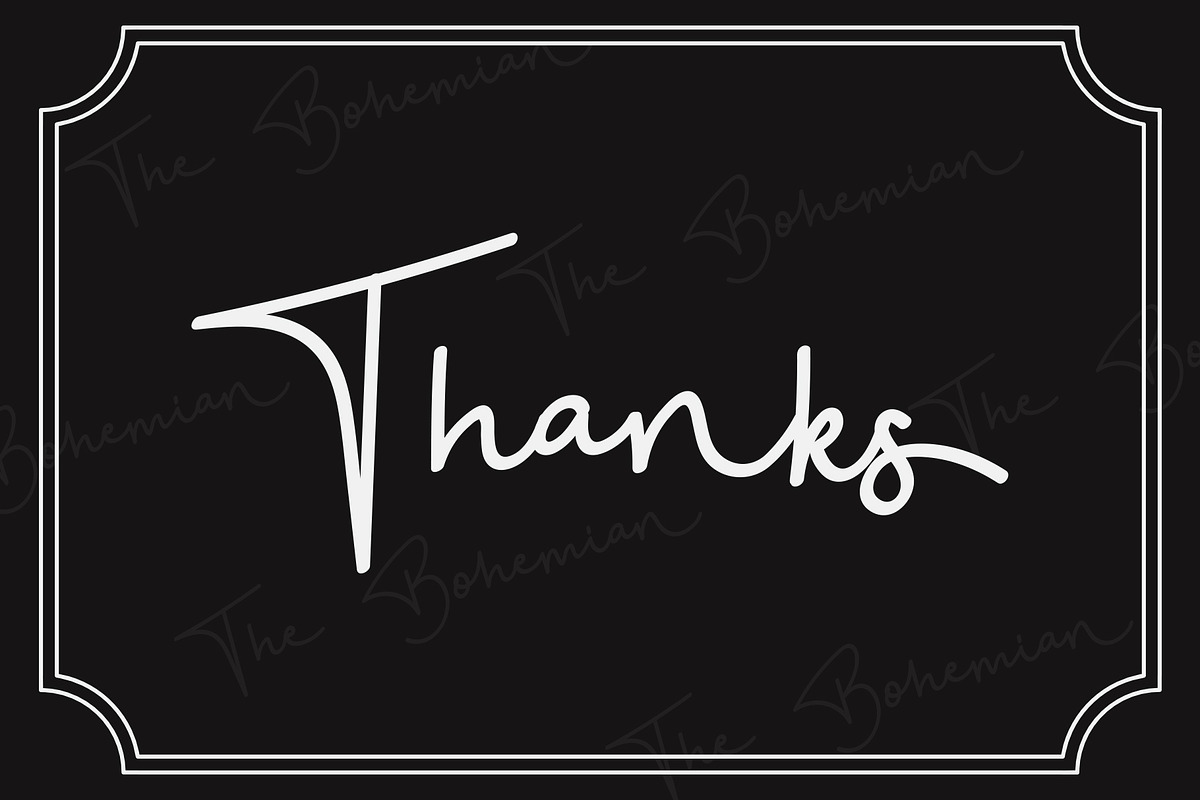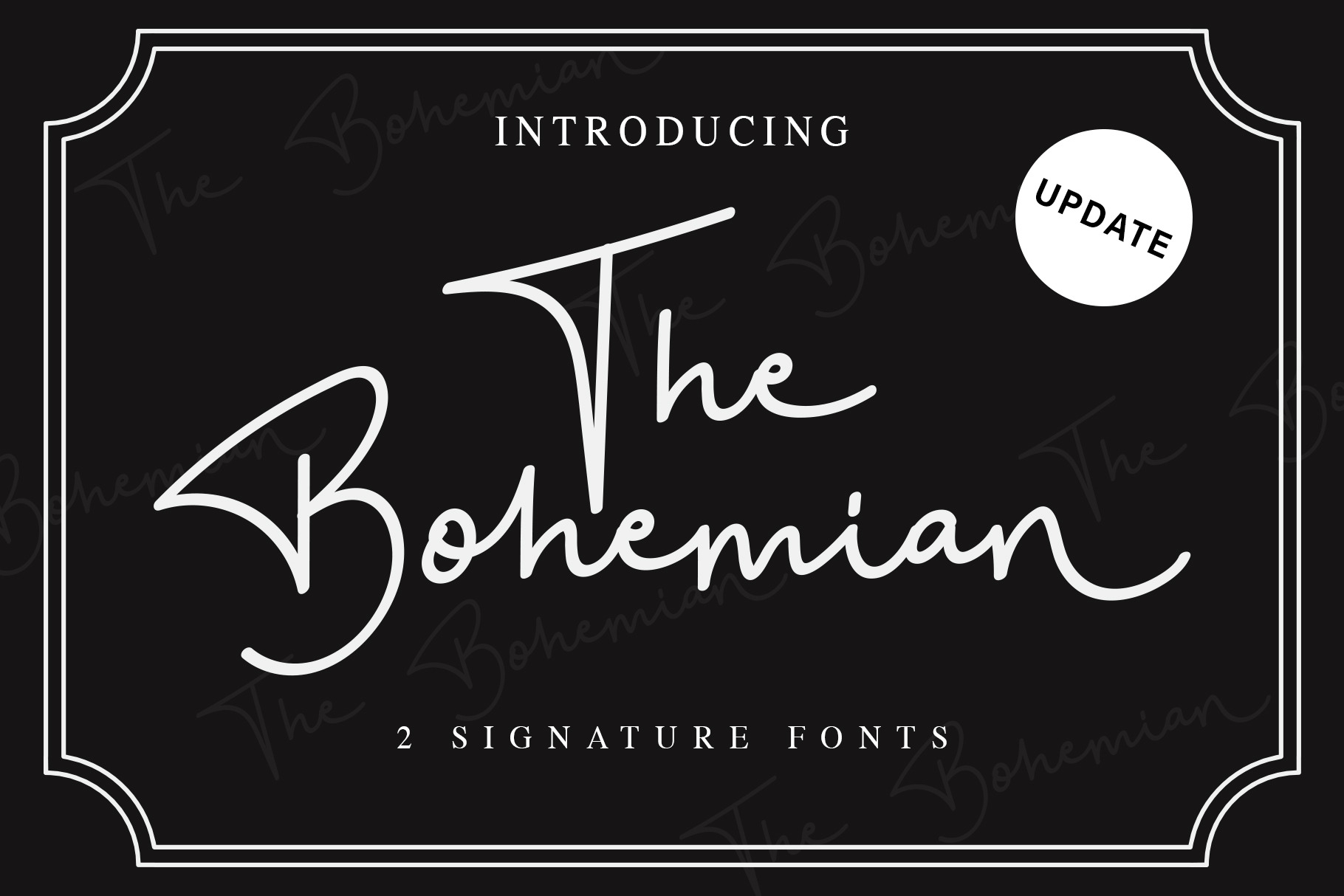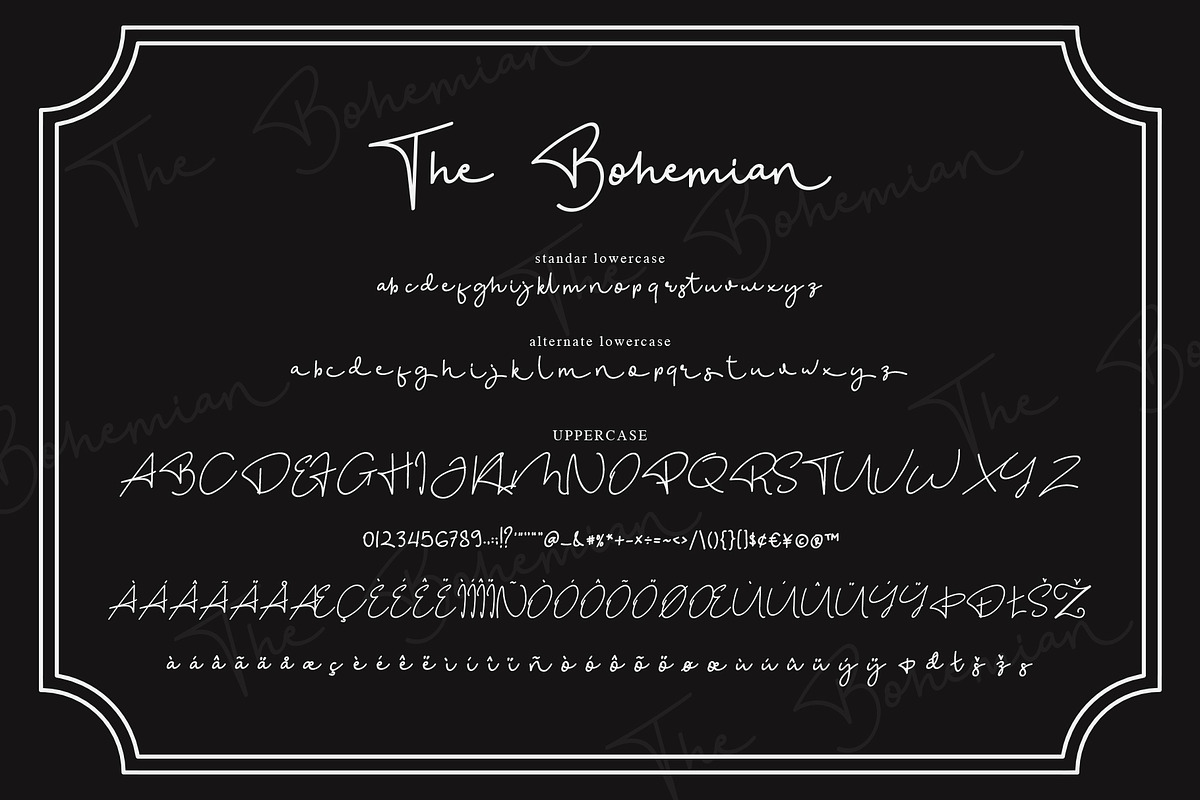
The Bohemian 2 Signature Font UPDATE
The Bohemian - a Signature Font is a handwritten script font with a simple and classy style, this font is great for your next creative projects such as watermark on photography, signature or signature logo design, quotes, album cover, business card, and many other design project. From business cards to photo watermarks, The Bohemian is here to elevate your work to the highest level.
The Bohemian COMES with uppercase letters, lowercase alternative letters, numbers, punctuation, ligature and multi lingual support